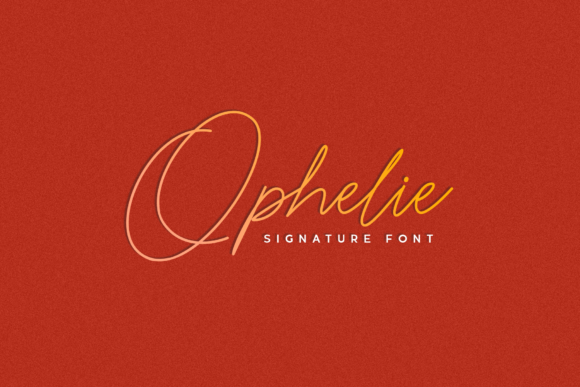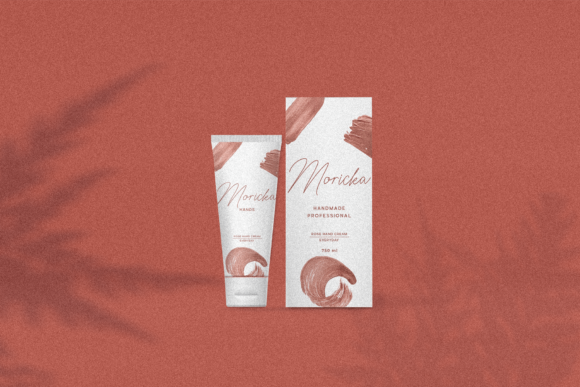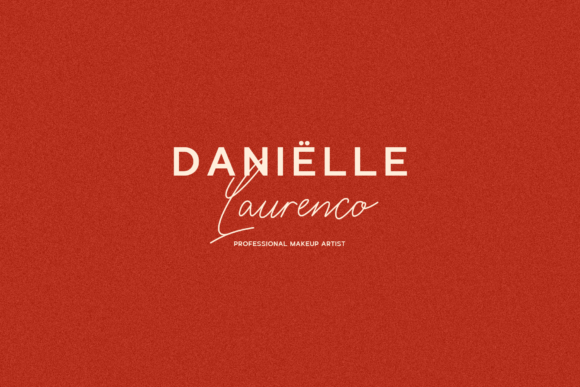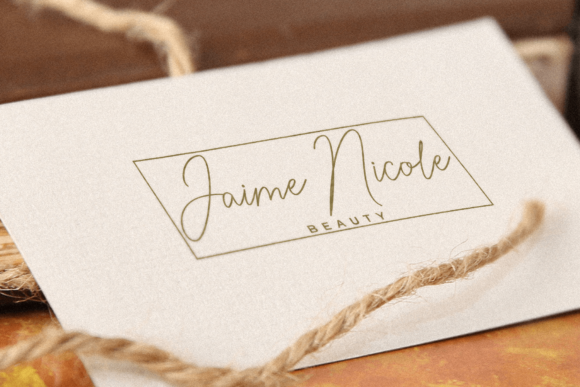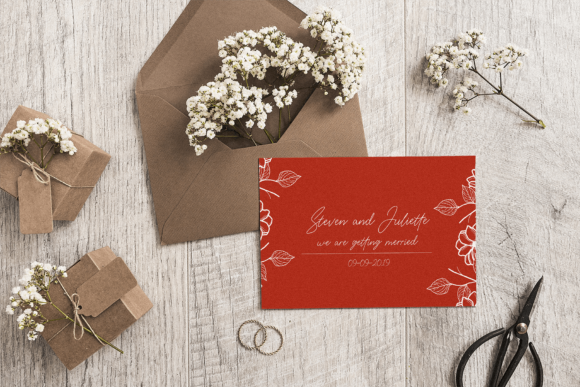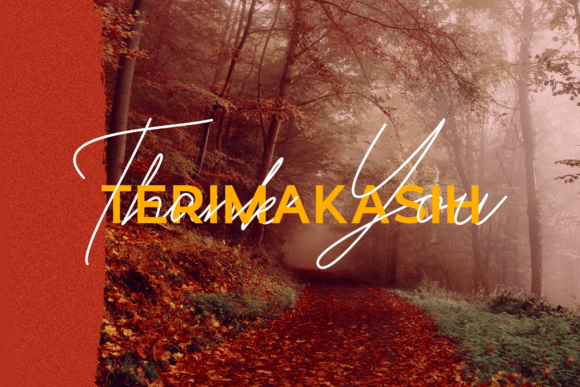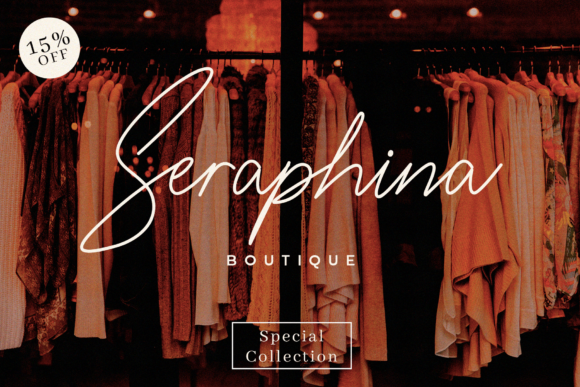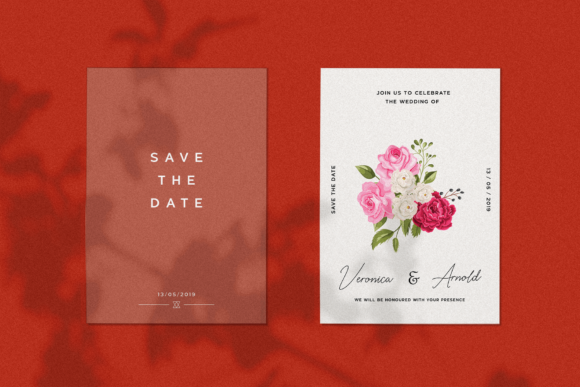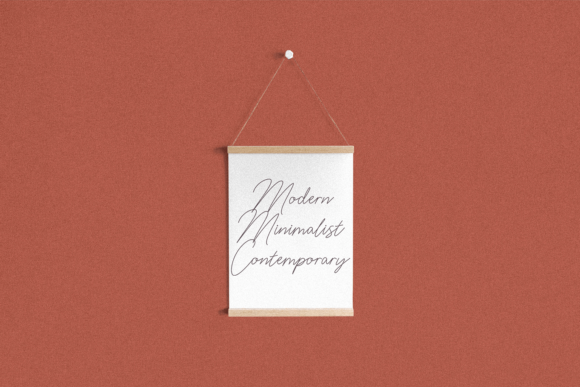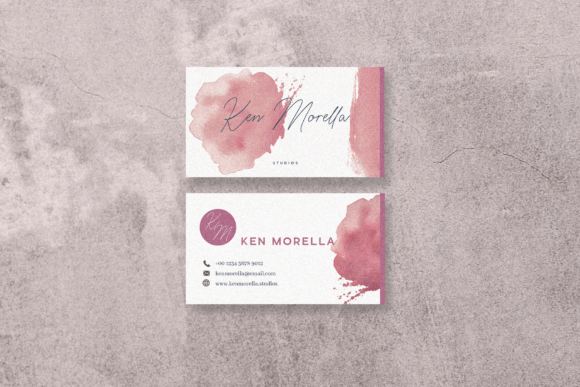
HomeScript FontsOphelie Font Script Fonts Ophelie Font FacebookXPinterestWhatsApp Ophelie Font Poster 2 Ophelie Font Poster 3 Ophelie Font Poster 4 Ophelie Font Poster 5 Ophelie Font Poster 6 Ophelie Font Poster 7 Ophelie Font Poster 8 Ophelie Font Poster 9 Ophelie Font Poster 10 Ophelie Font Poster 11 Ophelie Font Poster 12 Ophelie Font Poster 13 Ophelie Font Poster 14 About Ophelie Font Ophelie is a romantic script font with a flowing letters. Fall in love with its charming look & feel! DOWNLOAD NOW People also explored Boho Magic Font Artmar Font The Lesson Font Unique Vintage Font Airosol Font Beginner Font Collective Font New Forum Bold Font Ante Blink Font 409 0 TagsOphelie Font Previous articleBrushella FontNext articleWanggler Font LEAVE A REPLY Cancel reply Comment: Please enter your comment! Name:* Please enter your name here Email:* You have entered an incorrect email address! Please enter your email address here Website: Save my name, email, and website in this browser for the next time I comment. Personal Use Free Ontel Personal Use Free Read more about this font Good Timing – Bold Personal Use Free Read more about this font Token No 721 Personal Use Free Read more about this font BD Alm Personal Use Free Read more about this font BLOG The 10 Best Handwriting Fonts to Add Personality to Your Designs 10 of the Best Handwriting Fonts for Adding Personality to Your Designs There will undoubtedly be no other better choice than handwriting fonts to give... How to Install and Use Fonts on Windows, macOS, and Web Projects Best Fonts for T-Shirt Design – Top 2025 Picks Top 7 Google Fonts Alternatives for Faster and Privacy-Friendly Web Design (2025)